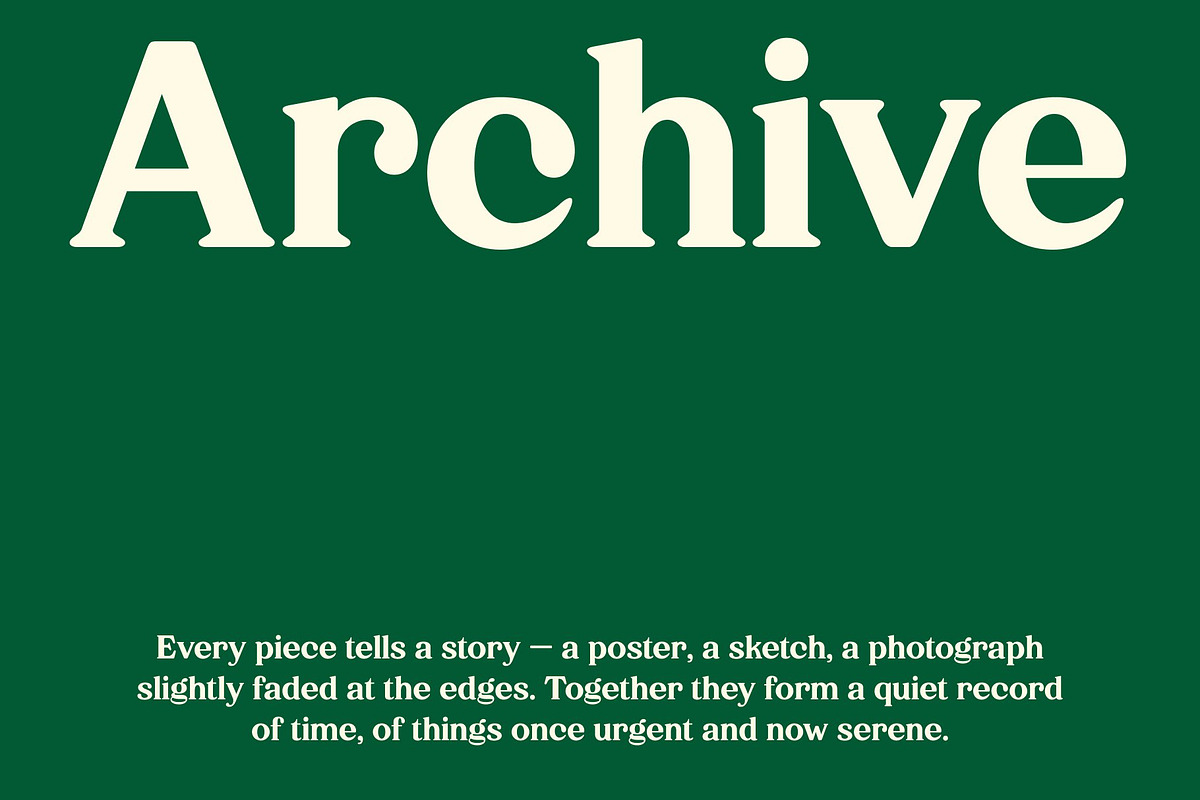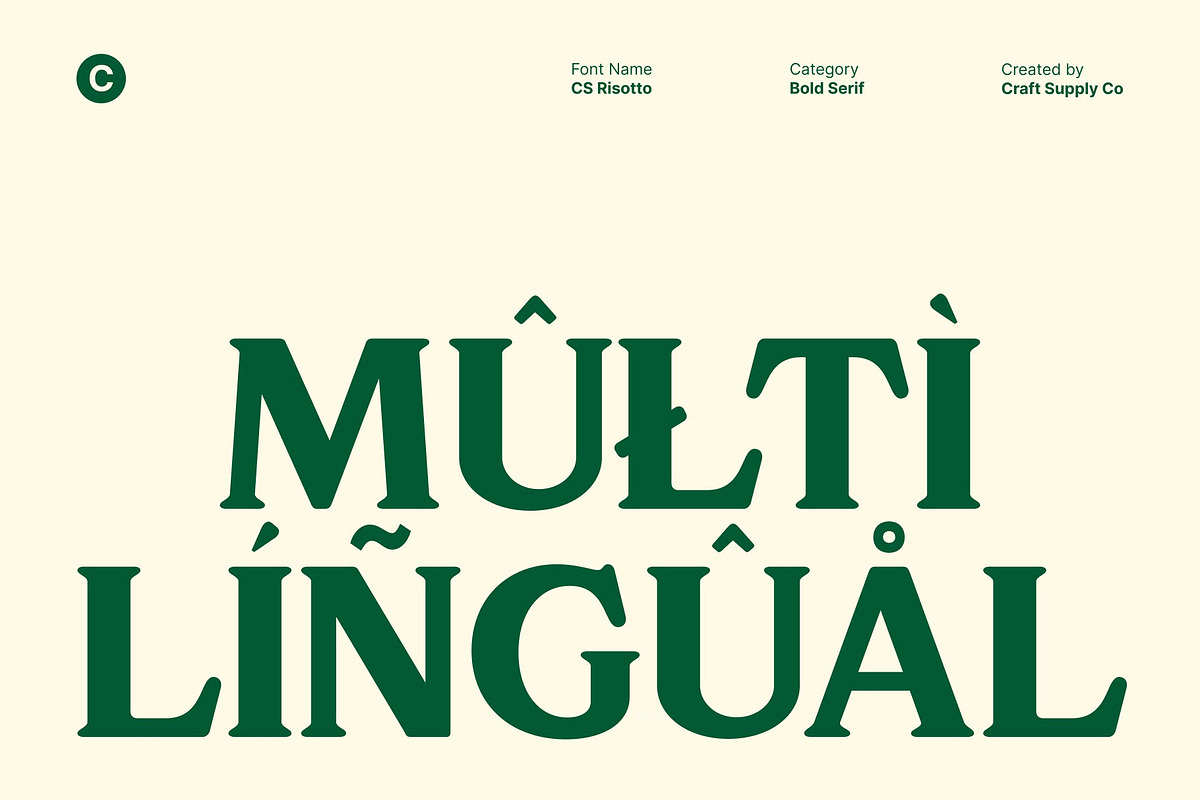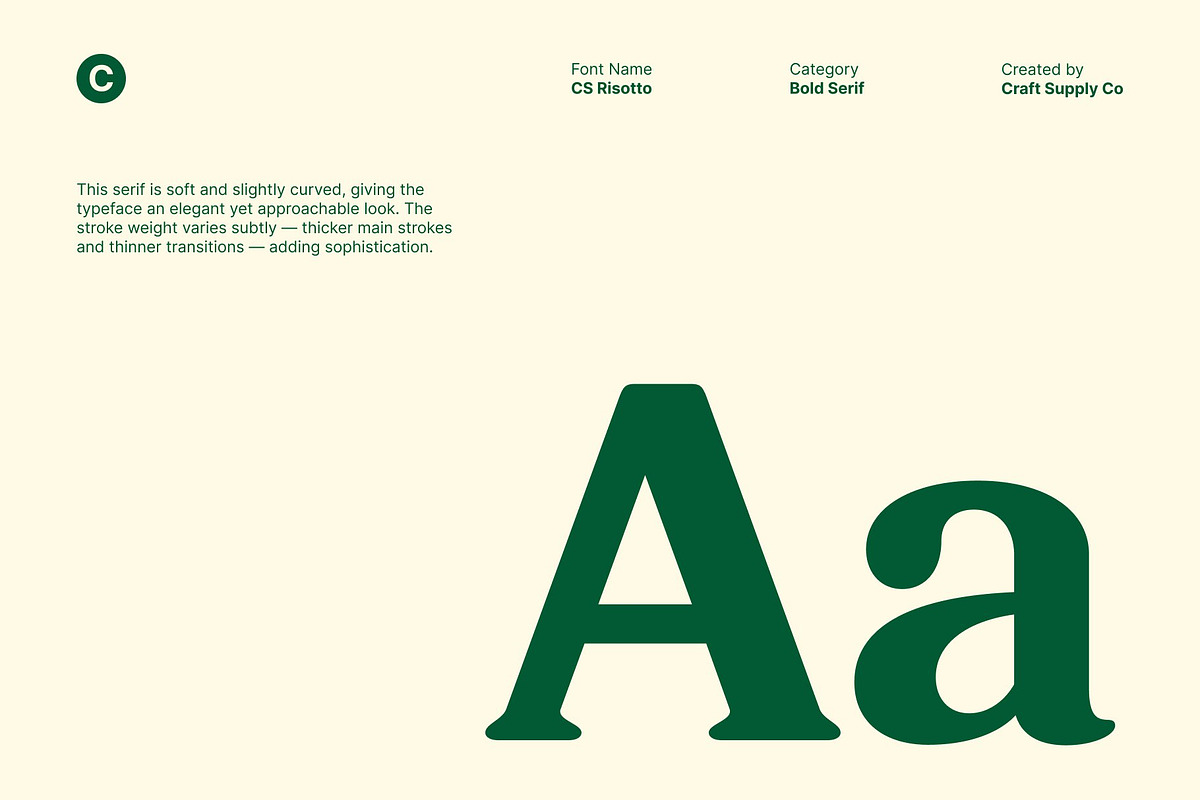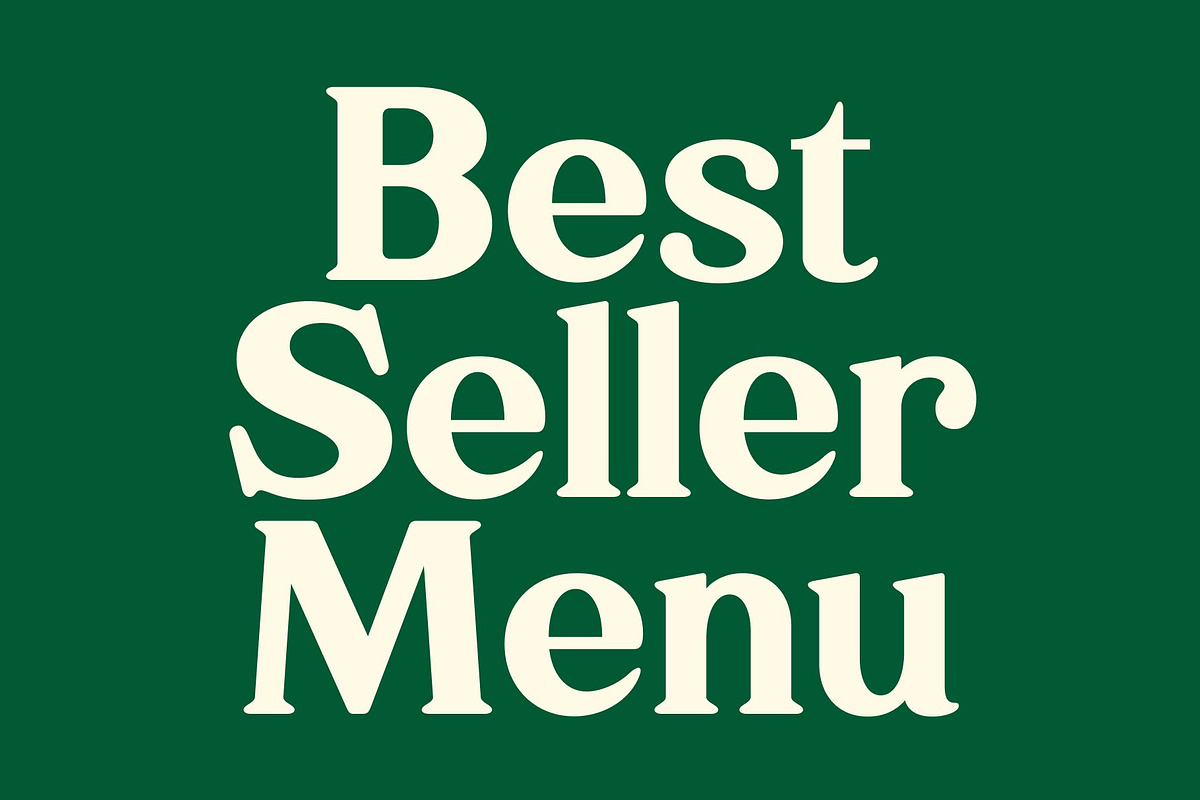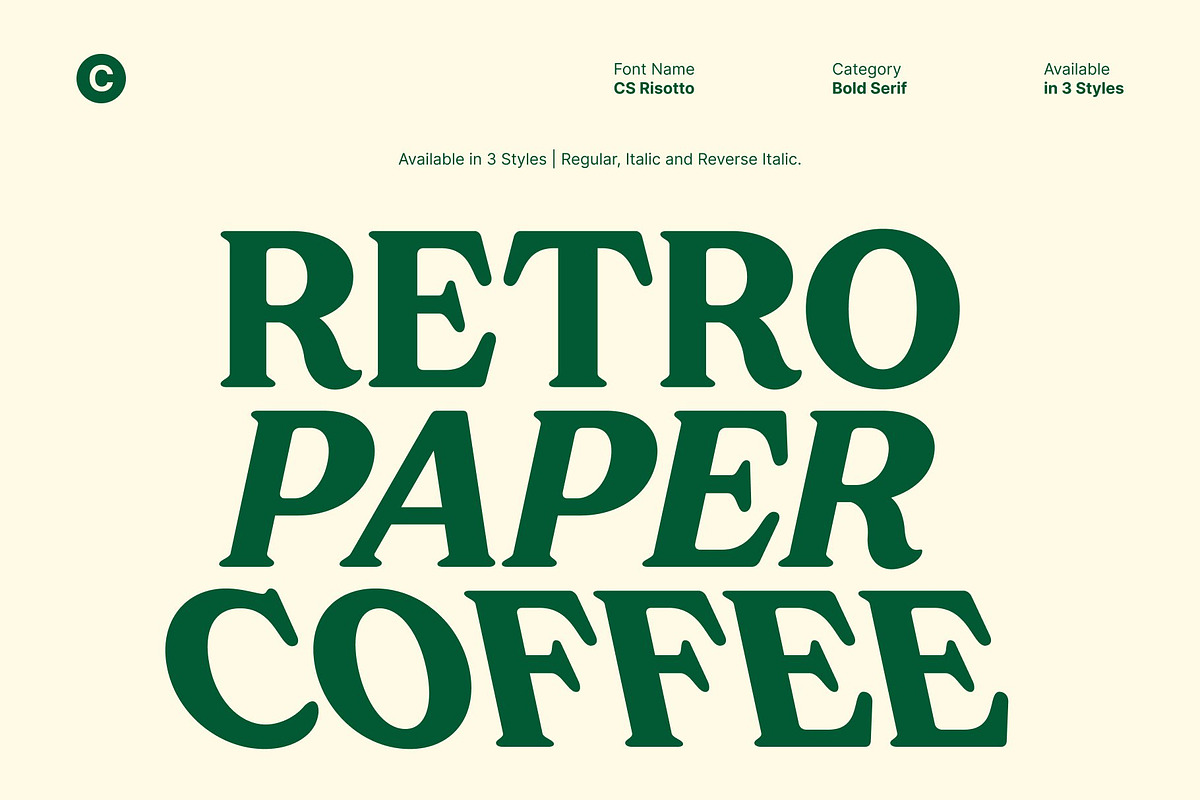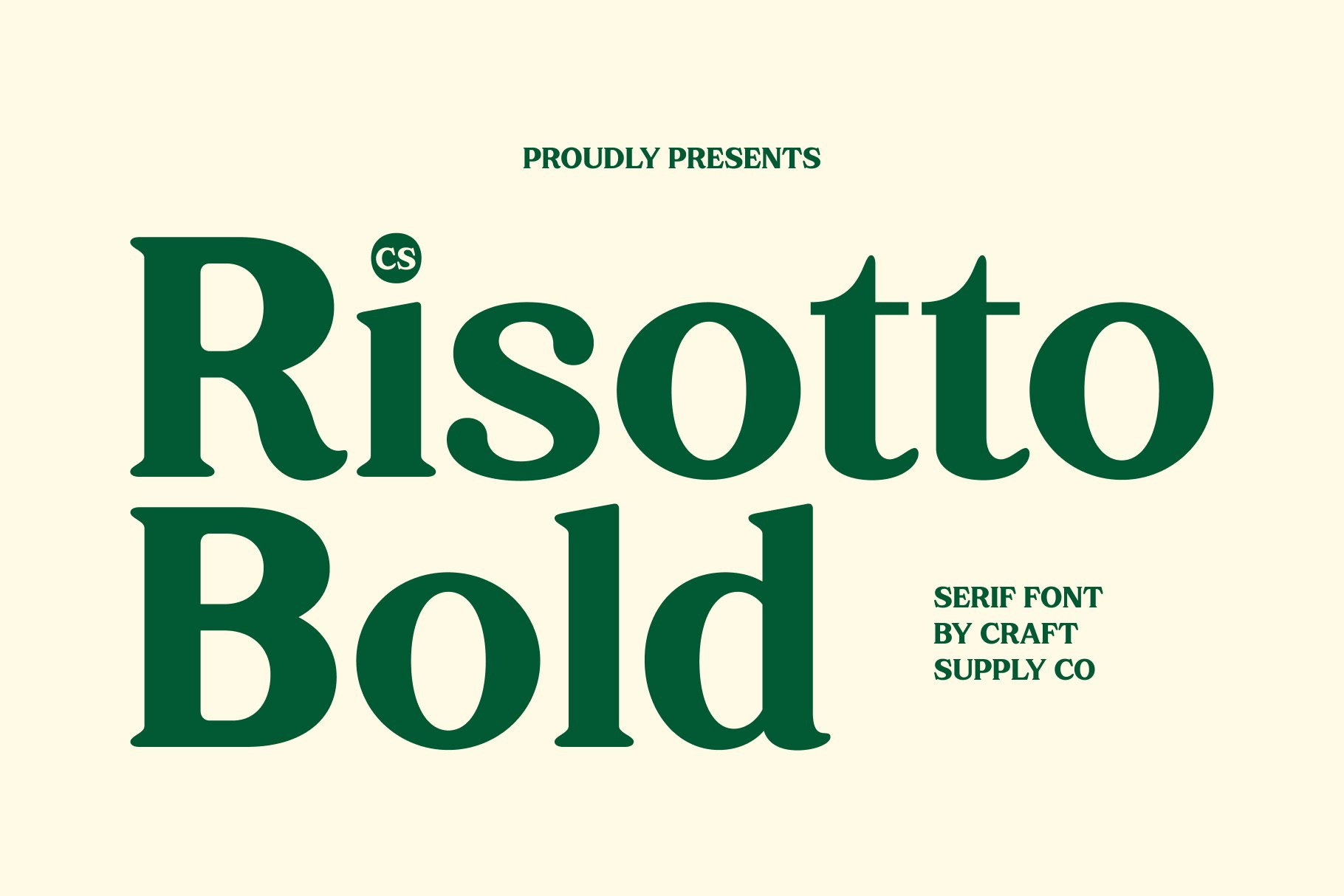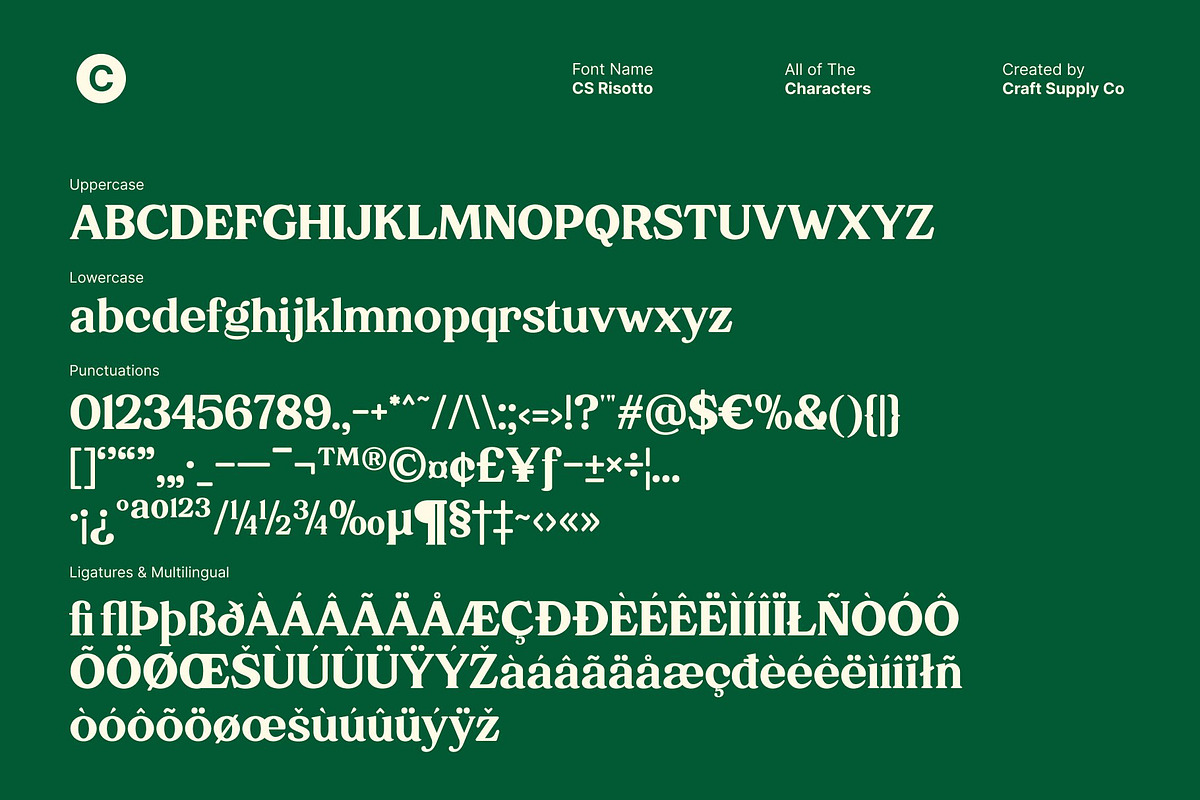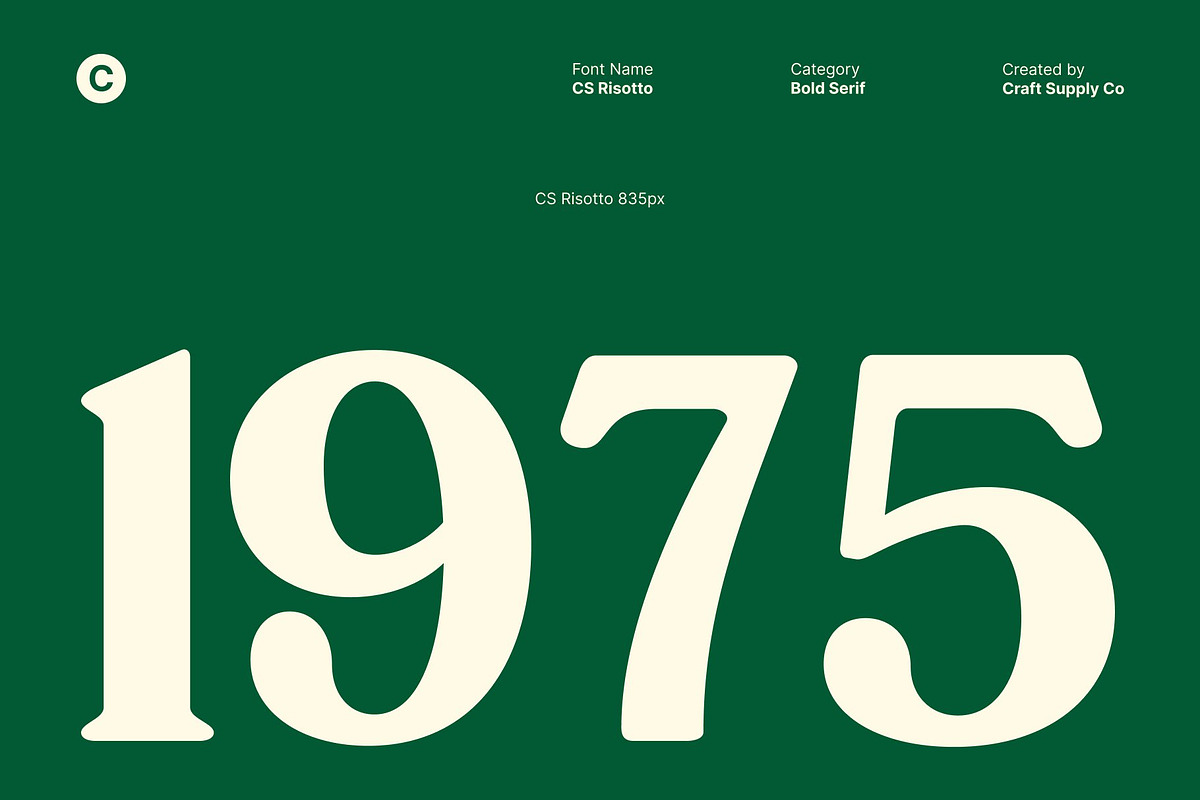
CS Risotto – Retro Serif Font
CS Risotto – Retro Warmth with Modern Energy
A Retro Display Font with Bold Character This font draws inspiration from timeless retro typography, bringing the beloved shapes of the past into a fresh, modern context. Its bold, friendly forms capture the spirit of classic lettering while introducing contemporary clarity. This balance of nostalgia and modernity makes the font instantly recognizable and highly expressive in any visual setting.
Timeless Nostalgia with a Modern Twist Designed with strong retro influence, this font blends rounded contours, expressive proportions, and a lively rhythm to evoke warm, familiar memories of vintage design. Yet, its clean lines and updated structure ensure it feels current perfect for designers who want a nostalgic touch without sacrificing modern appeal.
Perfect for Branding, Posters, and Retro-Inspired Campaigns This font thrives in creative spaces that require personality and visual punch. From branding and packaging to posters, merchandise, and digital graphics, this font delivers retro charm that instantly elevates the design. Its bold forms make headlines stand out, while its friendly energy enhances the storytelling of any project.
Expressive, Versatile, and Full of Character With its mix of vintage warmth and contemporary freshness, this font offers unparalleled versatility. Use it to create expressive titles, nostalgic campaigns, or memorable visual identities. Whether you’re channeling classic advertising styles or crafting modern retro aesthetics, this font ensures your work feels alive, engaging, and unforgettable.